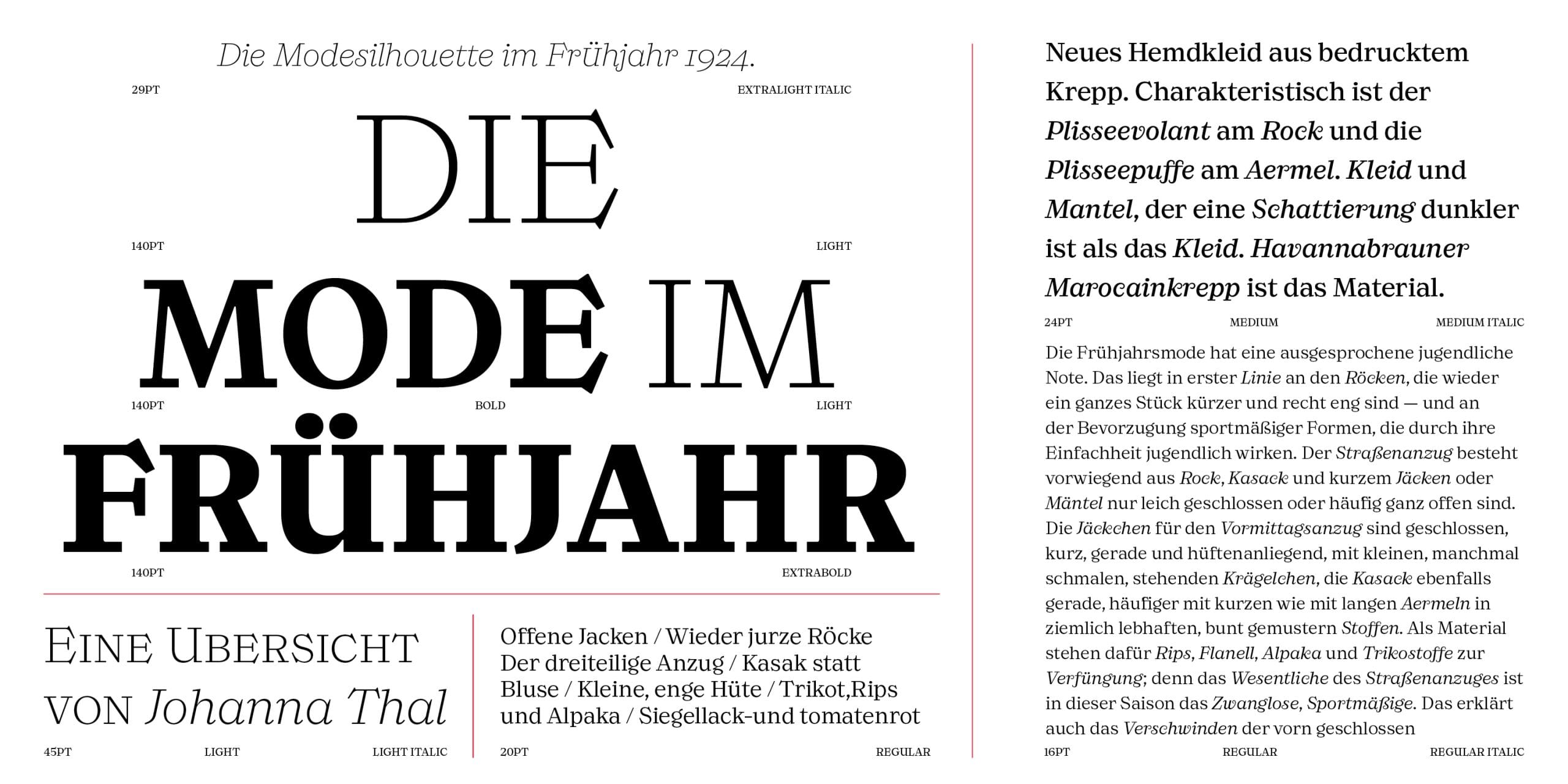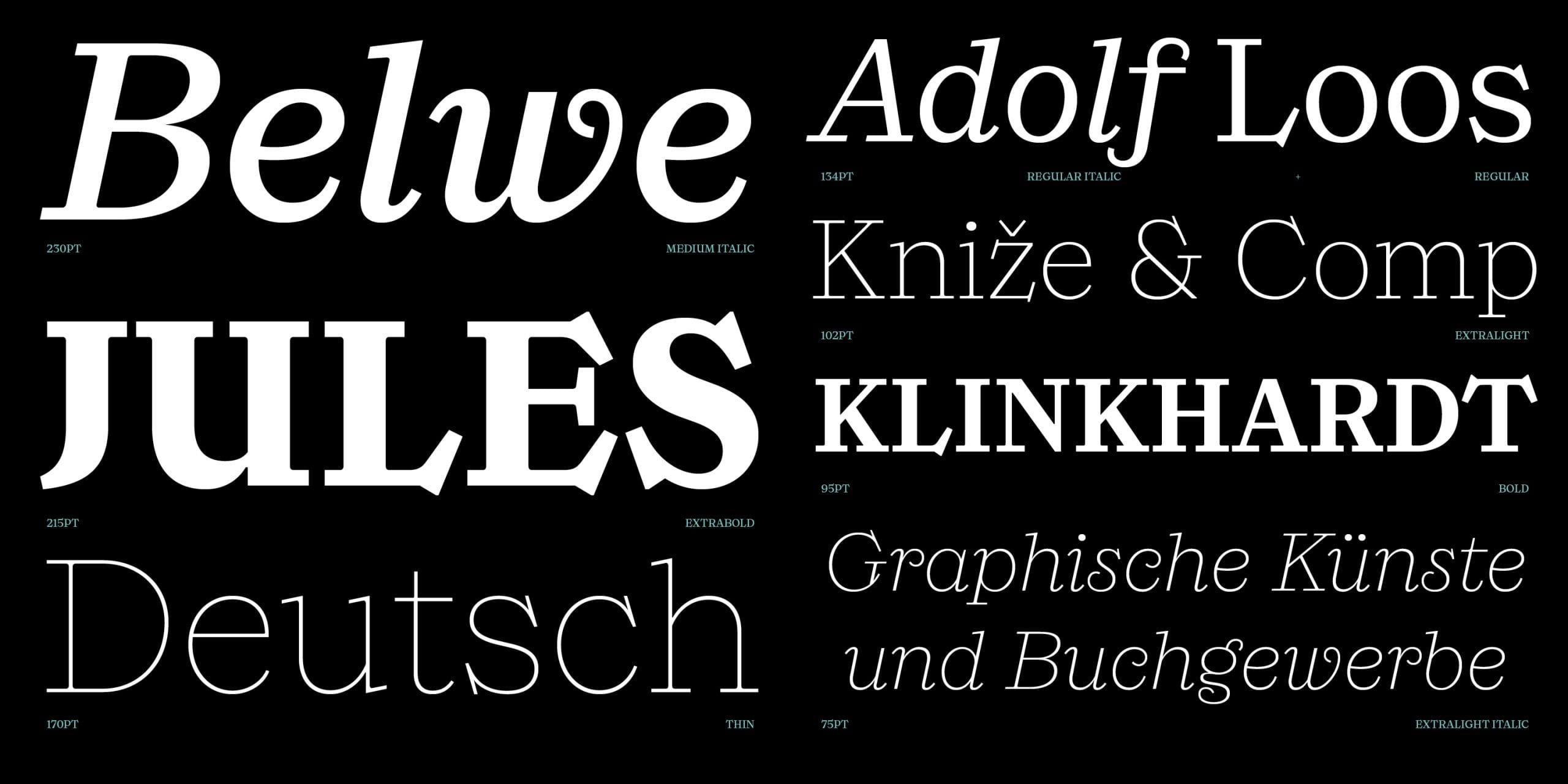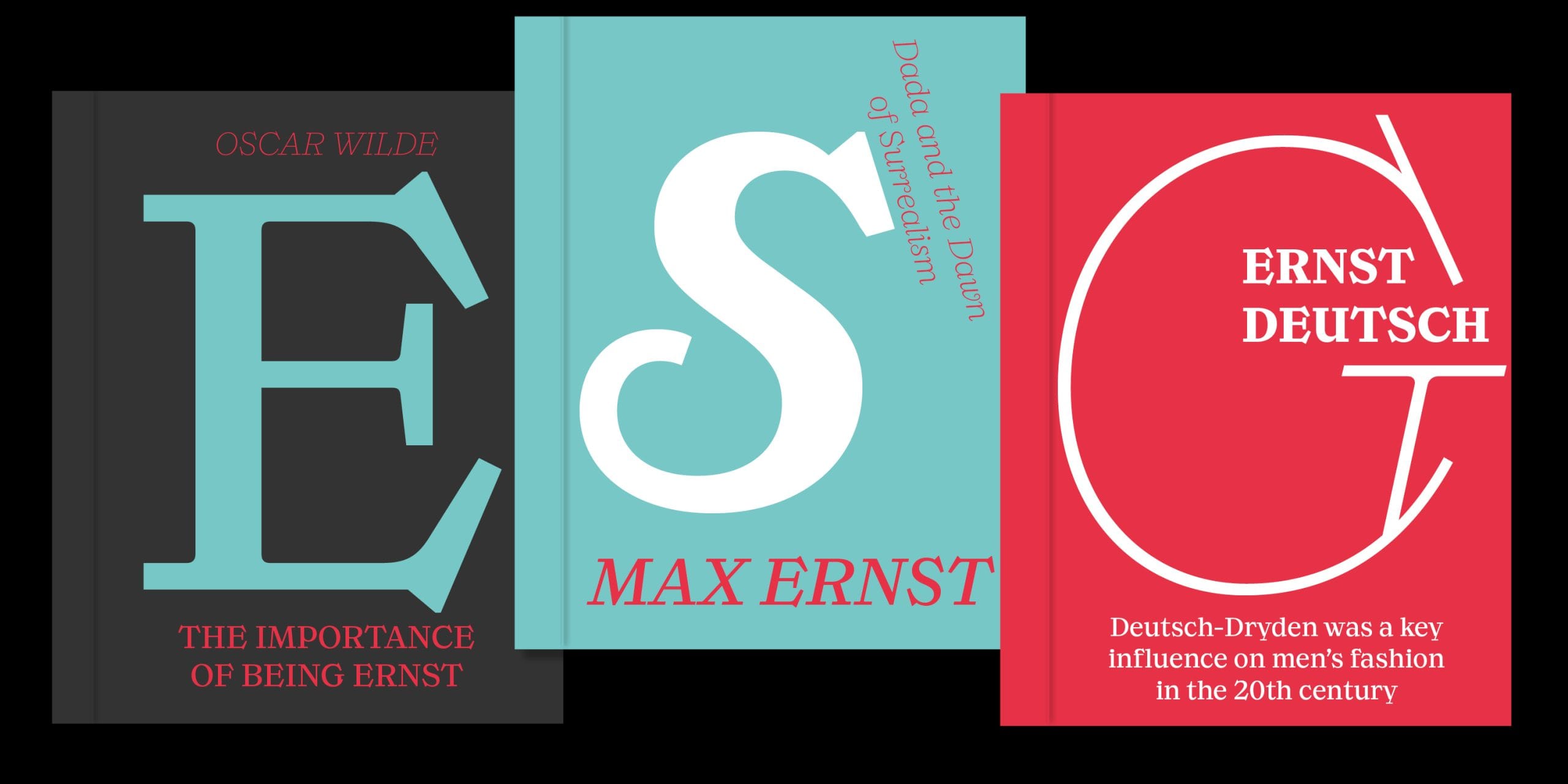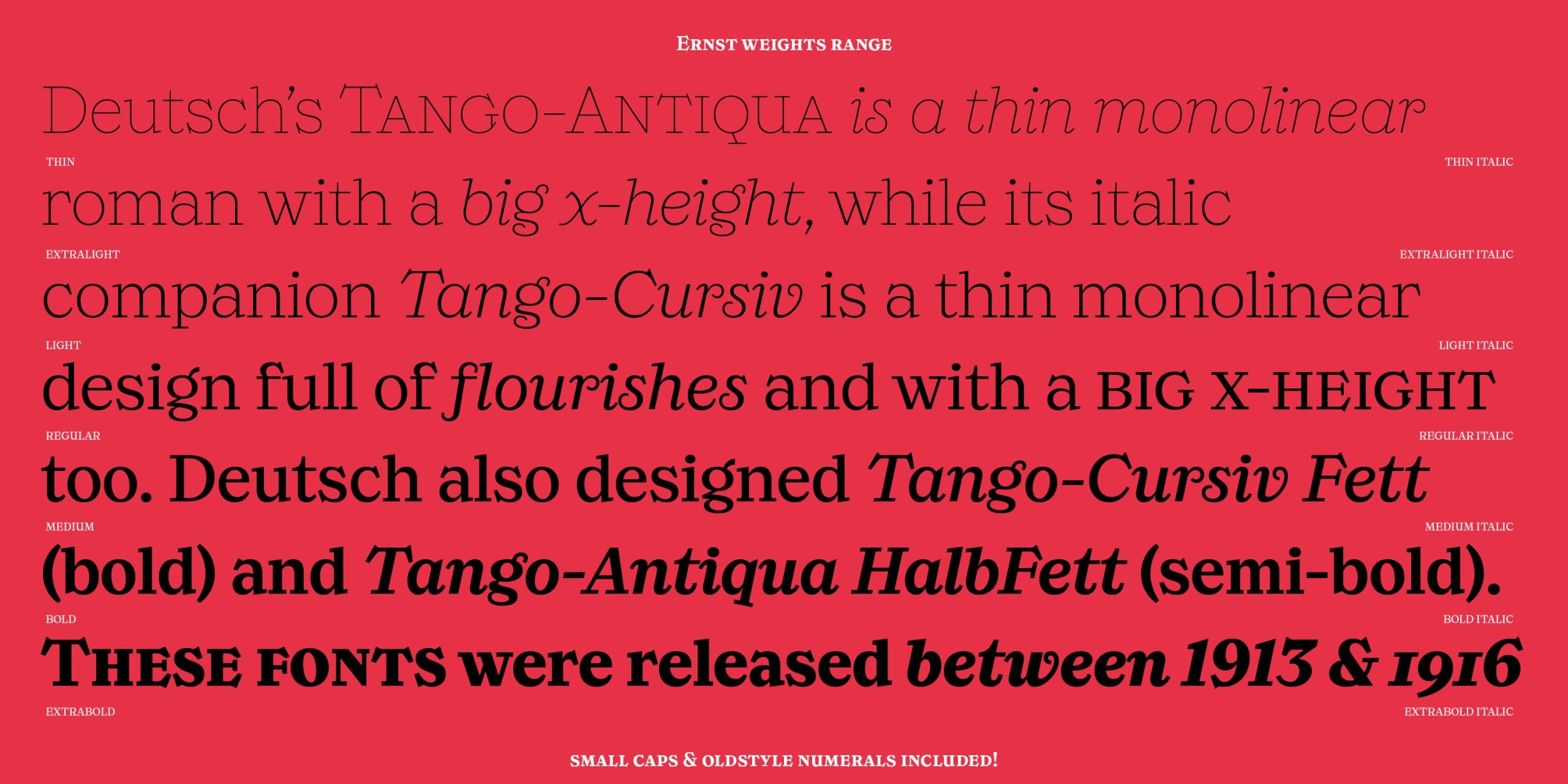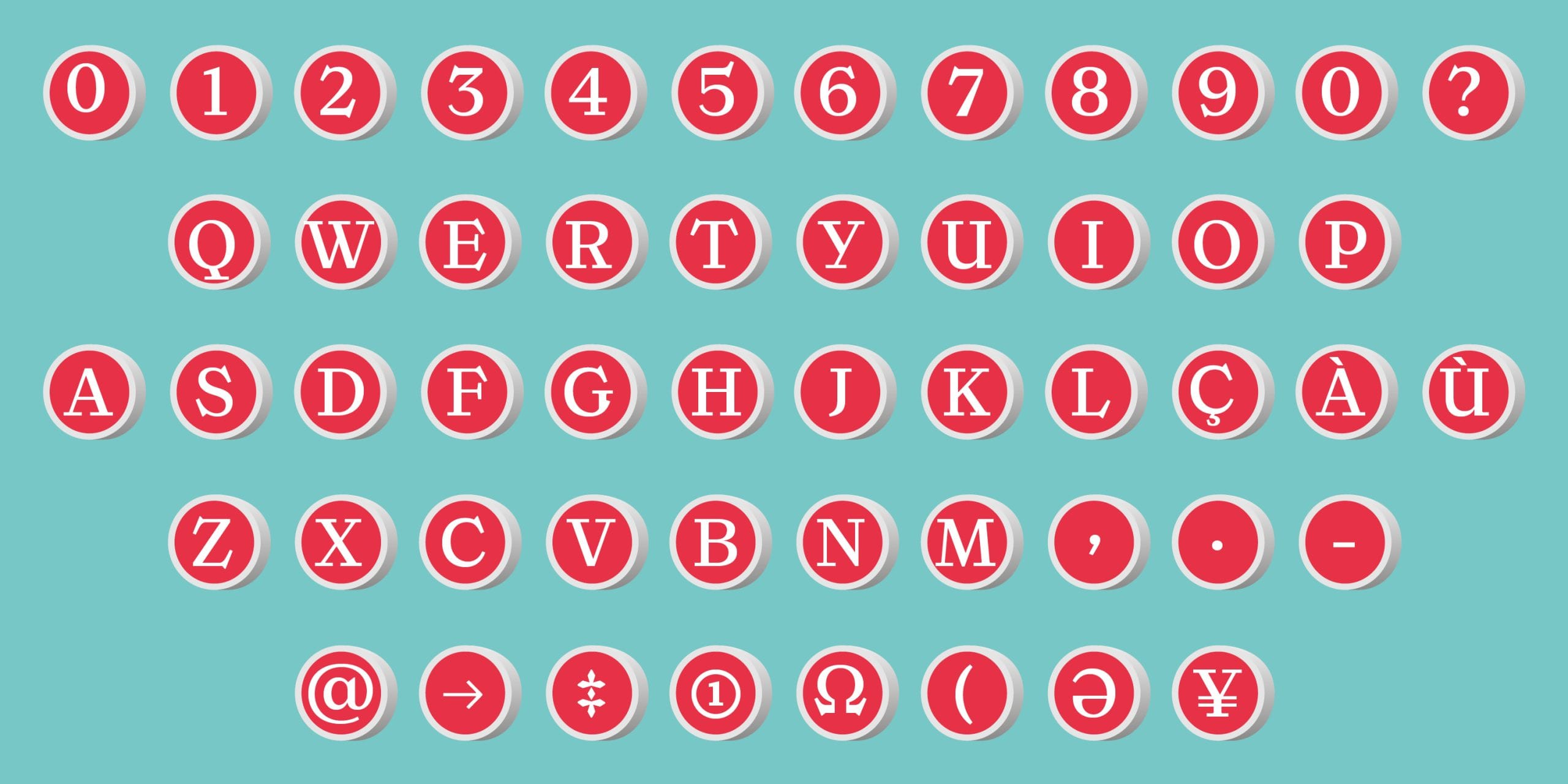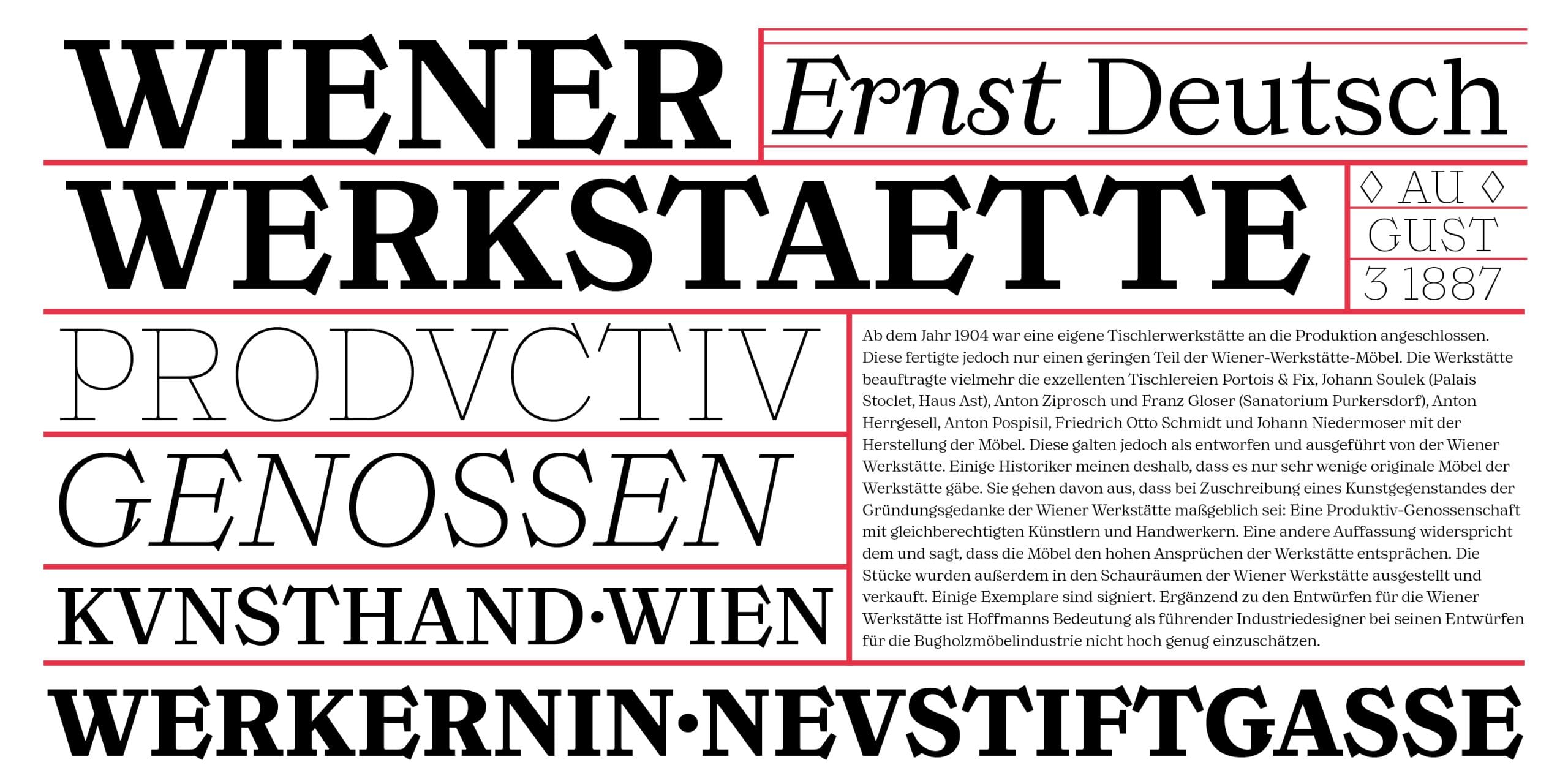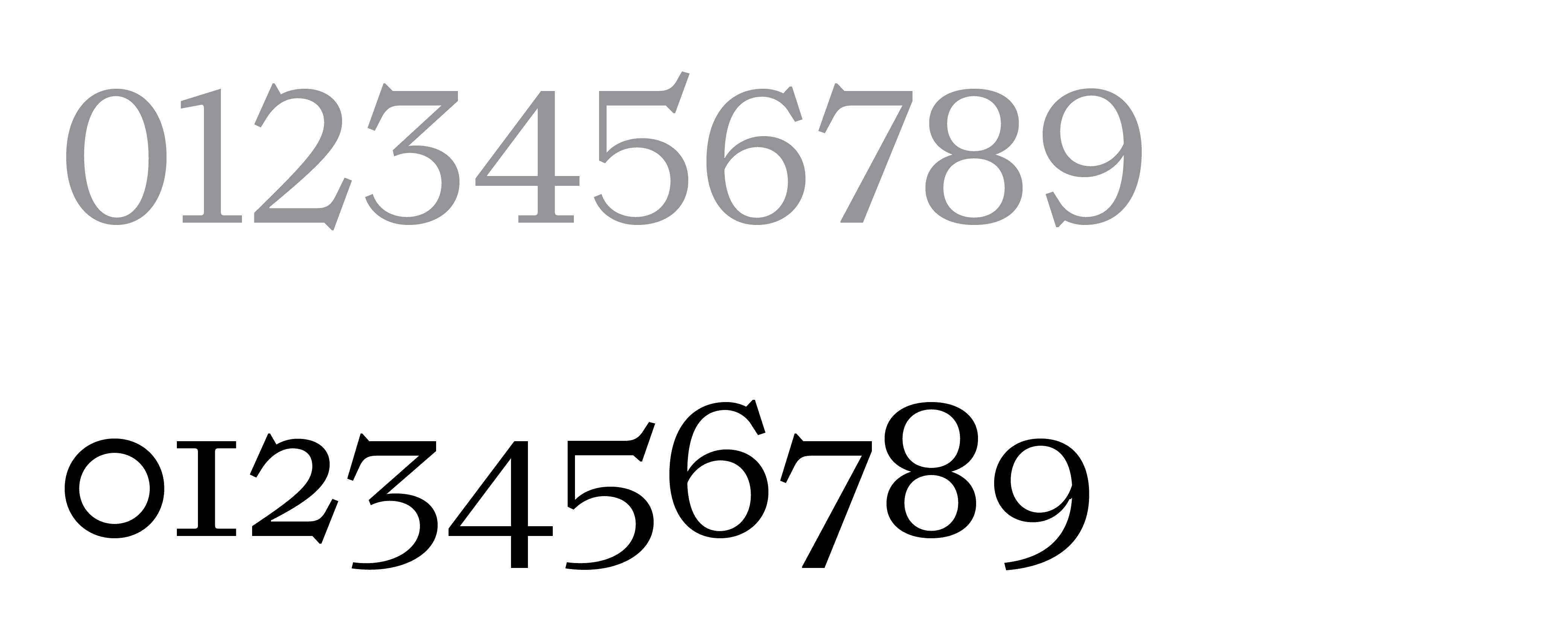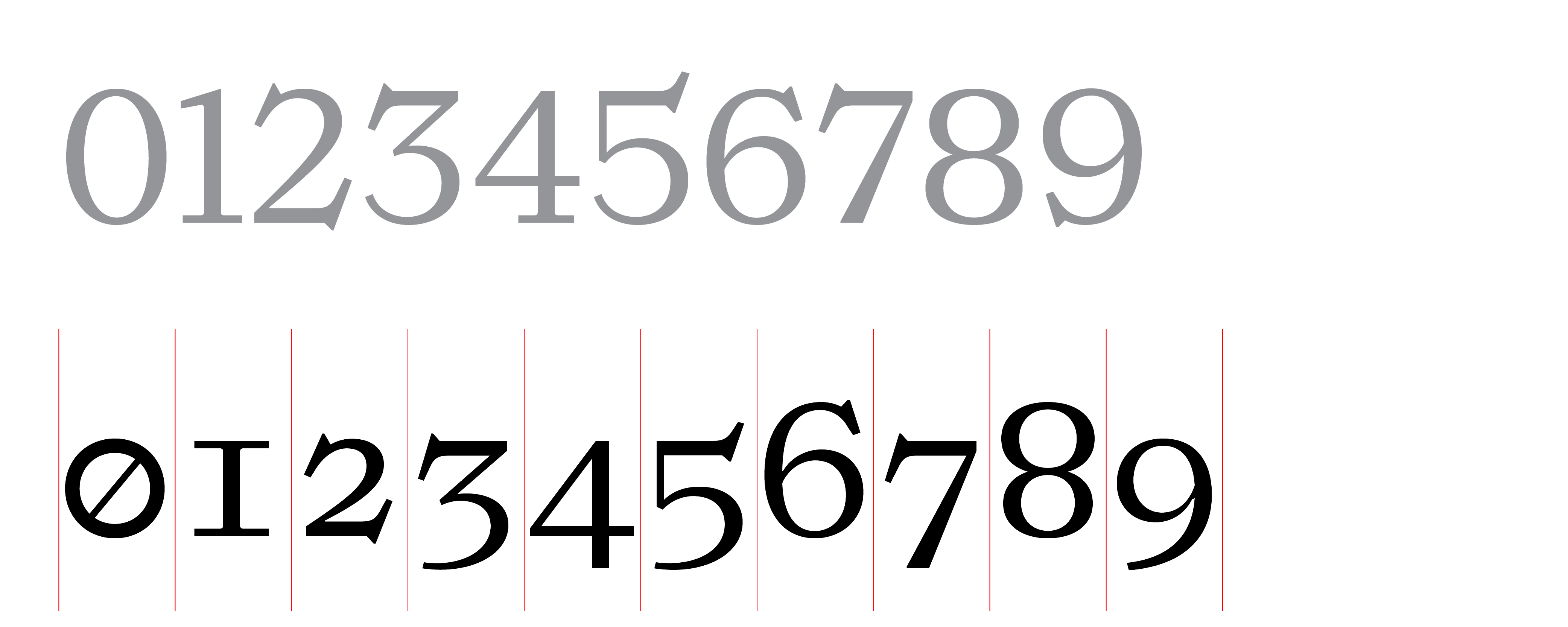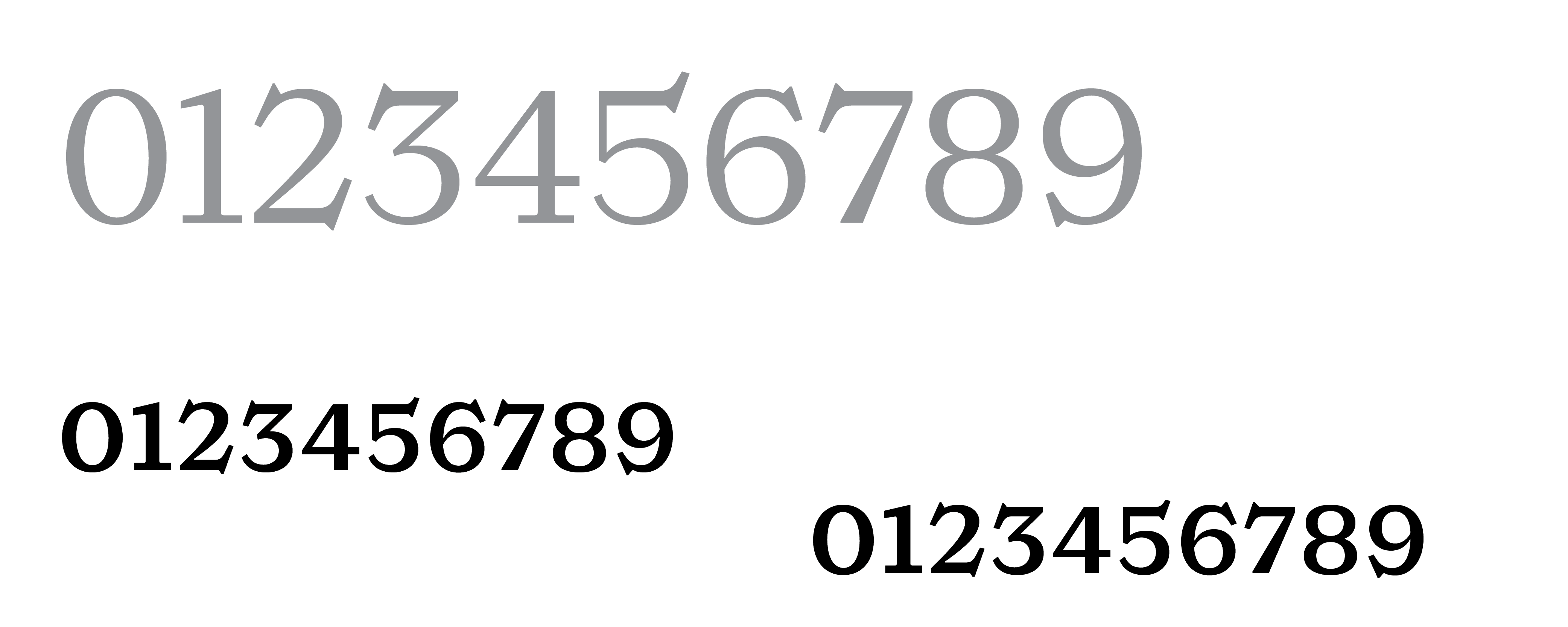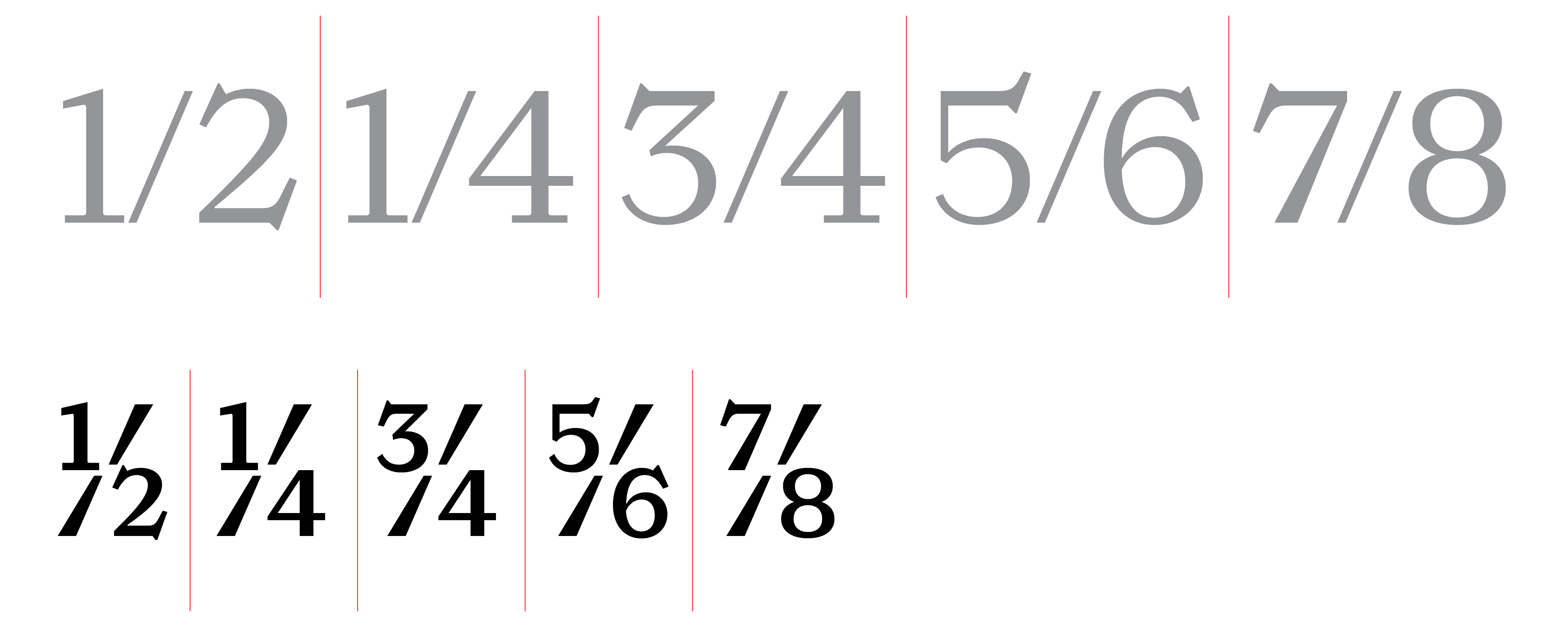
Ernst
Ernst is an elegant but playful slab serif which harks back to some peculiar early 20th-century types but responds to contemporary demands by offering a wide range of applications. Not properly a revival, Ernst blends type details from avant-garde faces such as Ernst Deutsch/Dryden’s Tango and Georg Belwe’s Belwe Antiqua. Its pronounced and frisky details make it a strong candidate for display work, while the big x-height, its design rigour and consistency of proportions also make it suitable for long texts.
The name Ernst is a tribute to Ernst Deutsch/Dryden, an Austrian designer who in his younger years did some remarkable lettering besides his Tango typeface released by Schriftgiesserei Julius Klinkhardt in 1913–1916, and later by H. Berthold AG. In German ‘ernst’ means ‘serious’; but our Ernst is anything but serious – especially with its whimsical italic that recalls the lettering of early 20th-century Parisian street theatres and silent movies.
Ernst and its italic come in a range of seven weights, from Thin to ExtraBold, and feature old style figures, small caps and some alternate letters.
Thin, Thin Italic, ExtraLight, ExtraLight Italic, Light, Light Italic, Regular, Regular Italic, Medium, Medium Italic, Bold, Bold Italic, ExtraBold, ExtraBold Italic
OpenType Features
Tabular figures
Oldstyle figures
Tabular oldstyle figures
Superscript and subscript
Fractions
Small caps
Alternative letter shapes (Stylistic set)
Case sensitive forms (Stylistic set 02)